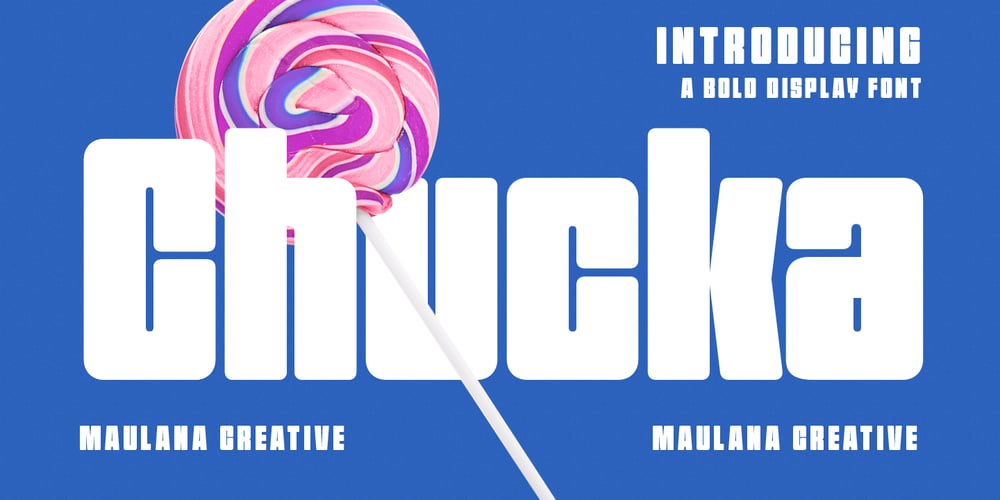
Chucka Font Family was designed by Gilang Maulana and published by Maulana Creative. Chucka contains 1 styles and family package options. Chucka is a modern display font. With bold stroke, fun character with a bit of ligatures. To give you an extra creative work. Chucka font support multilingual more than 100+ language. This font is good for logo design, Social media, Movie Titles, Books Titles, a short text even a long text letter and good for your secondary text font with serif or script. Make a stunning work with Chucka font. Cheers, Maulana Creative